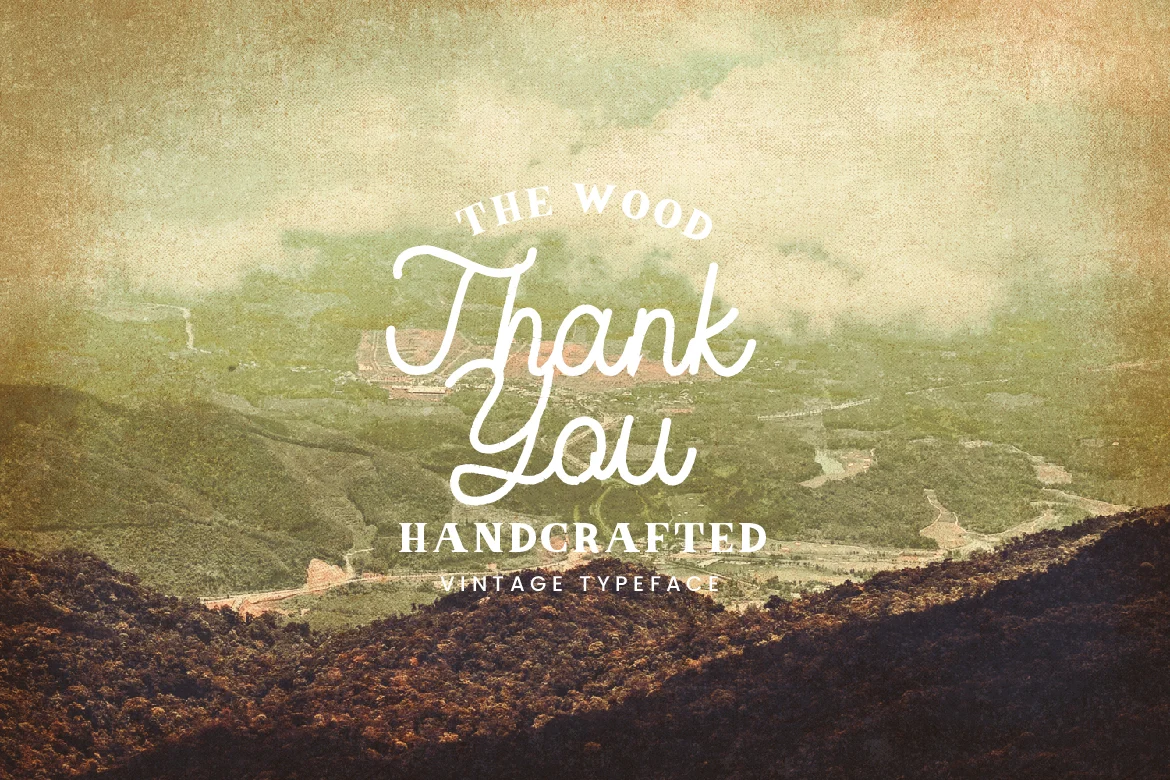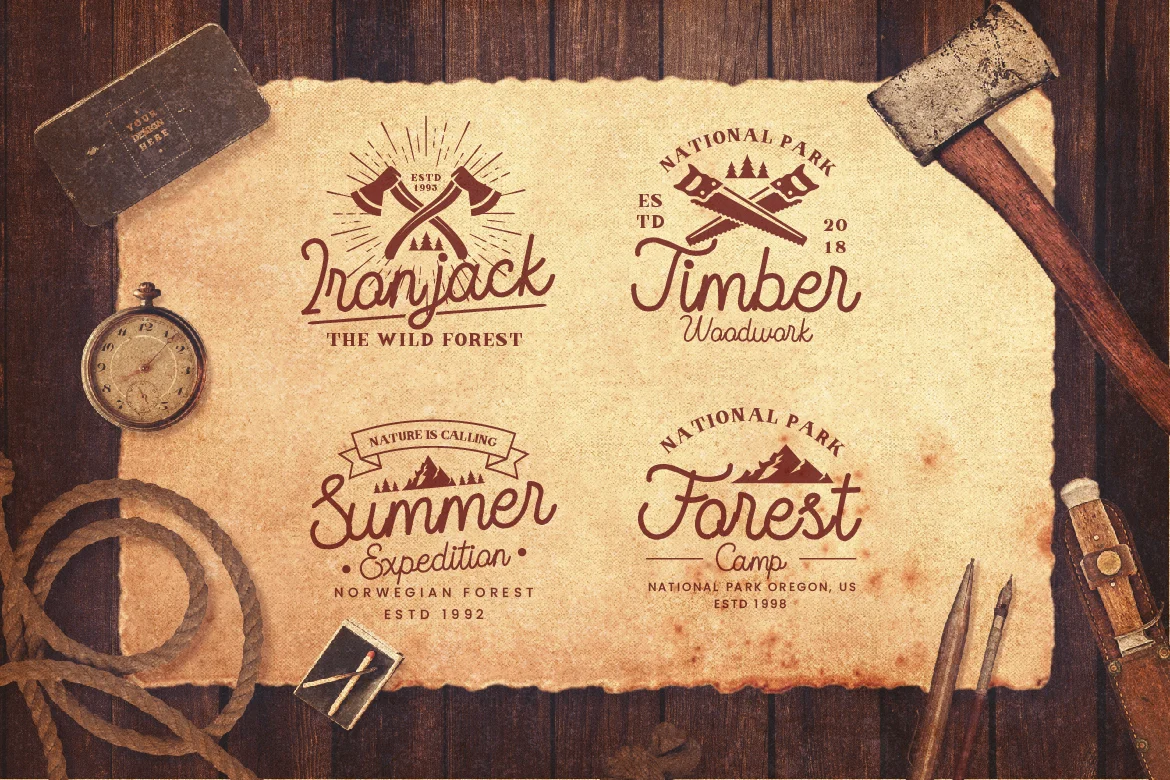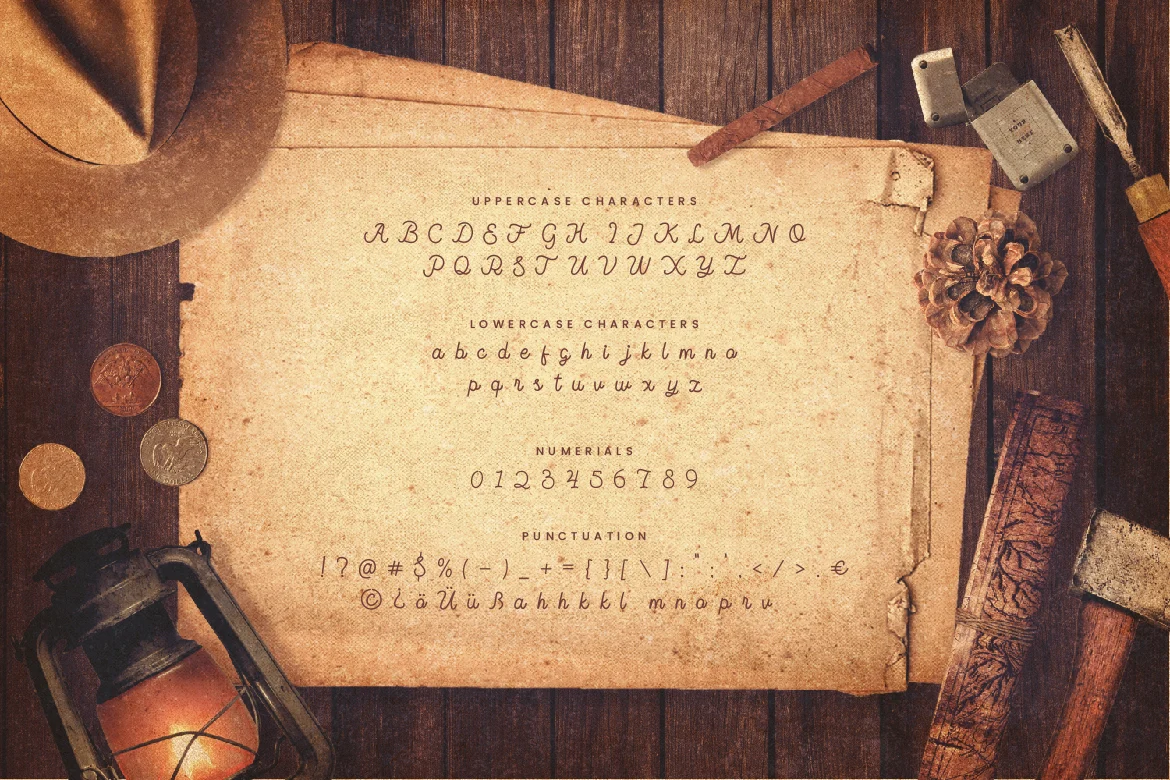
The Wood – Vintage Monoline Script Font
Are you looking for a vintage Monoline script font? We can help! Try to download our The Wood font. The font is suitable to use for many purpose. Try to use it on event, fashion, adventure, photography, branding and signature to see the best of it :)
- Basic Latin A-Z and a-z
- Numbers
- International Character